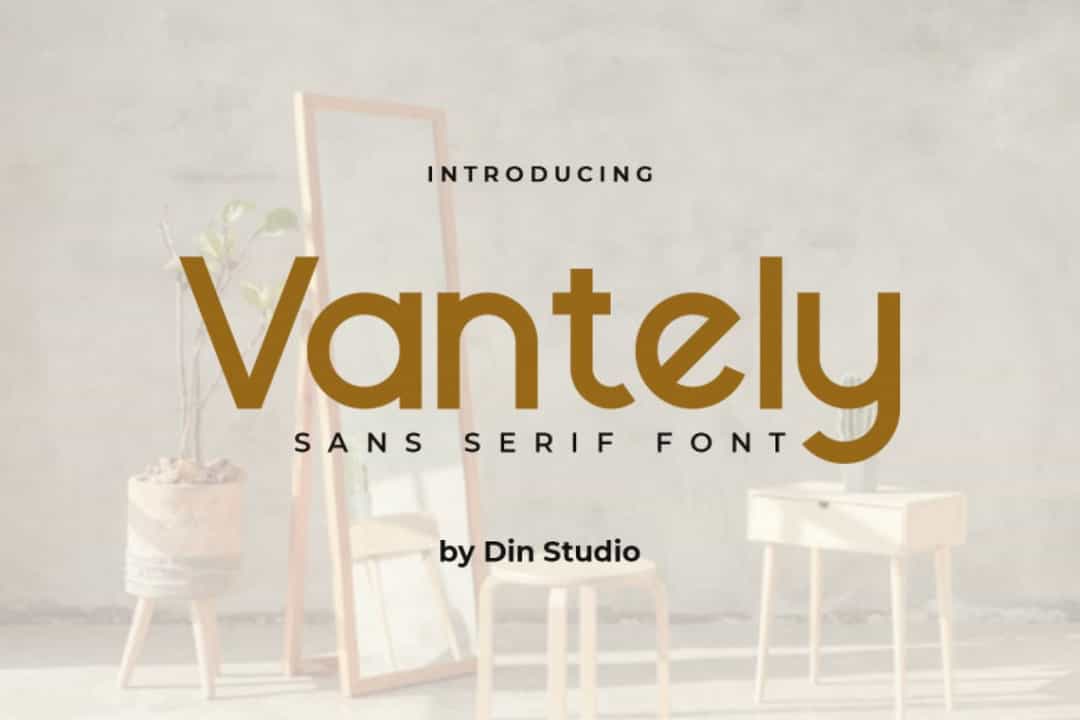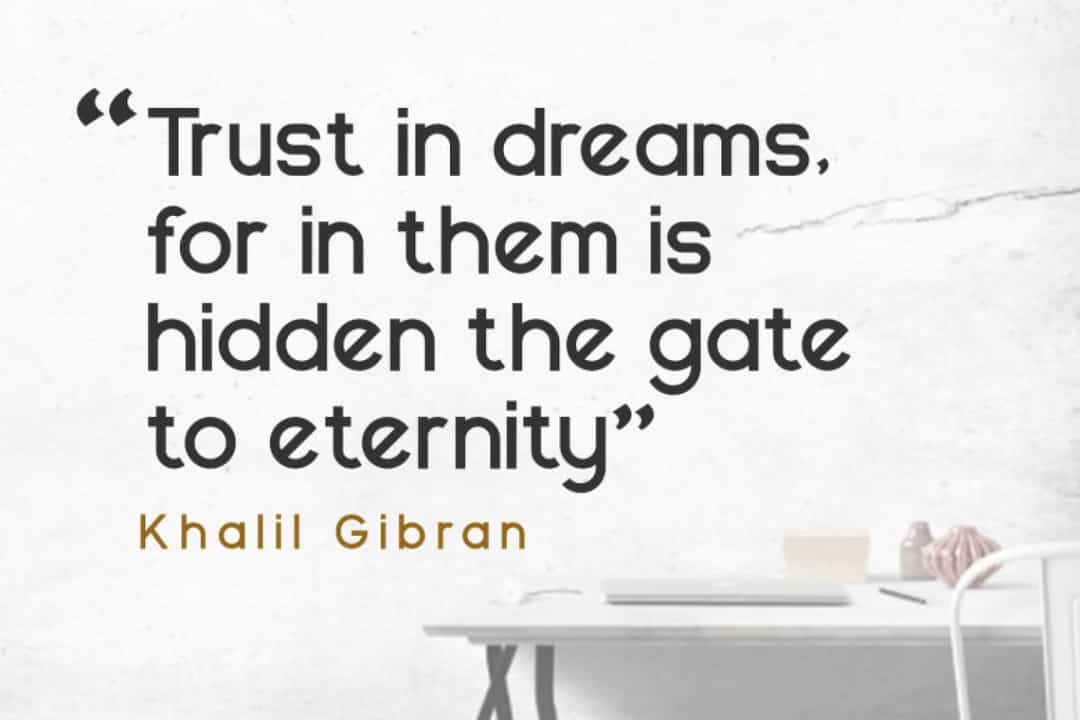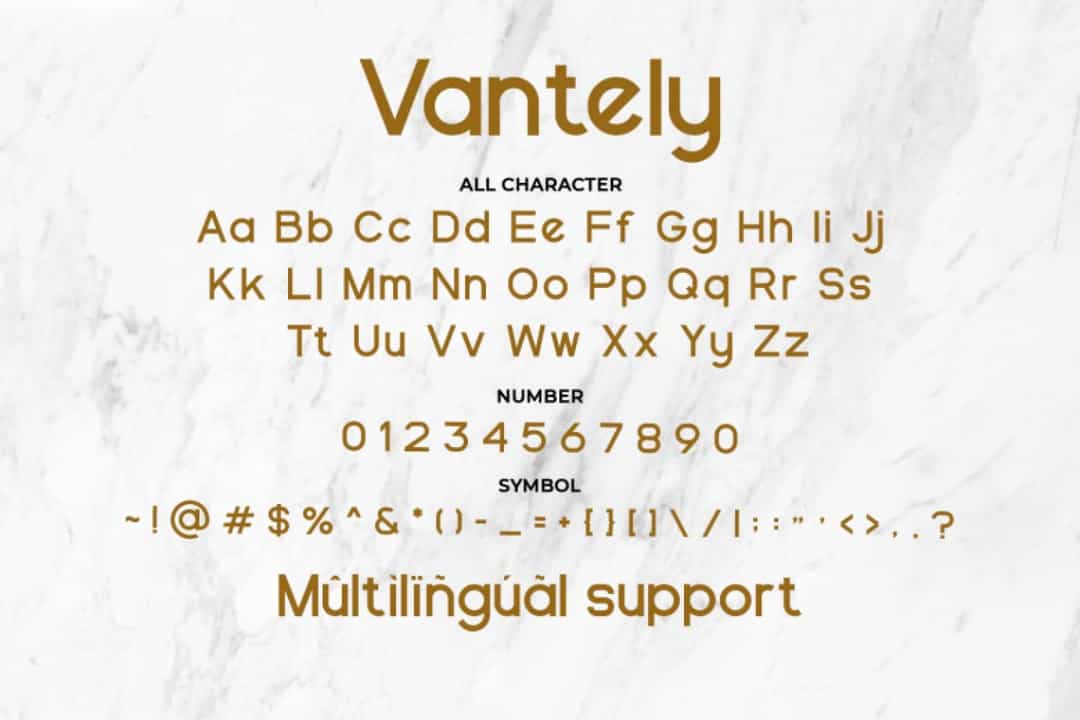
Vantely is a contemporary sans serif font designed specifically to be used in headlines that require an exceptional font, as well as various formal styles. Perfect for branding, printing and quotes; each letter boasts distinctive and stunning design features.